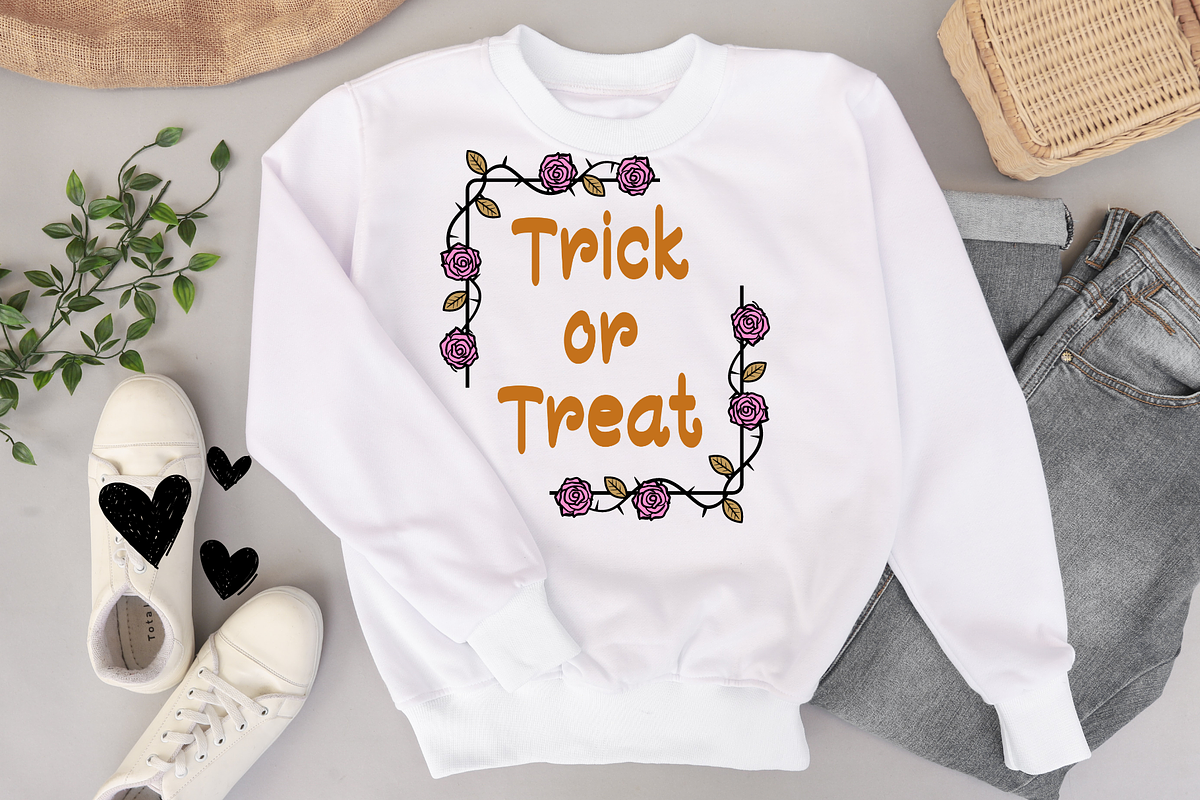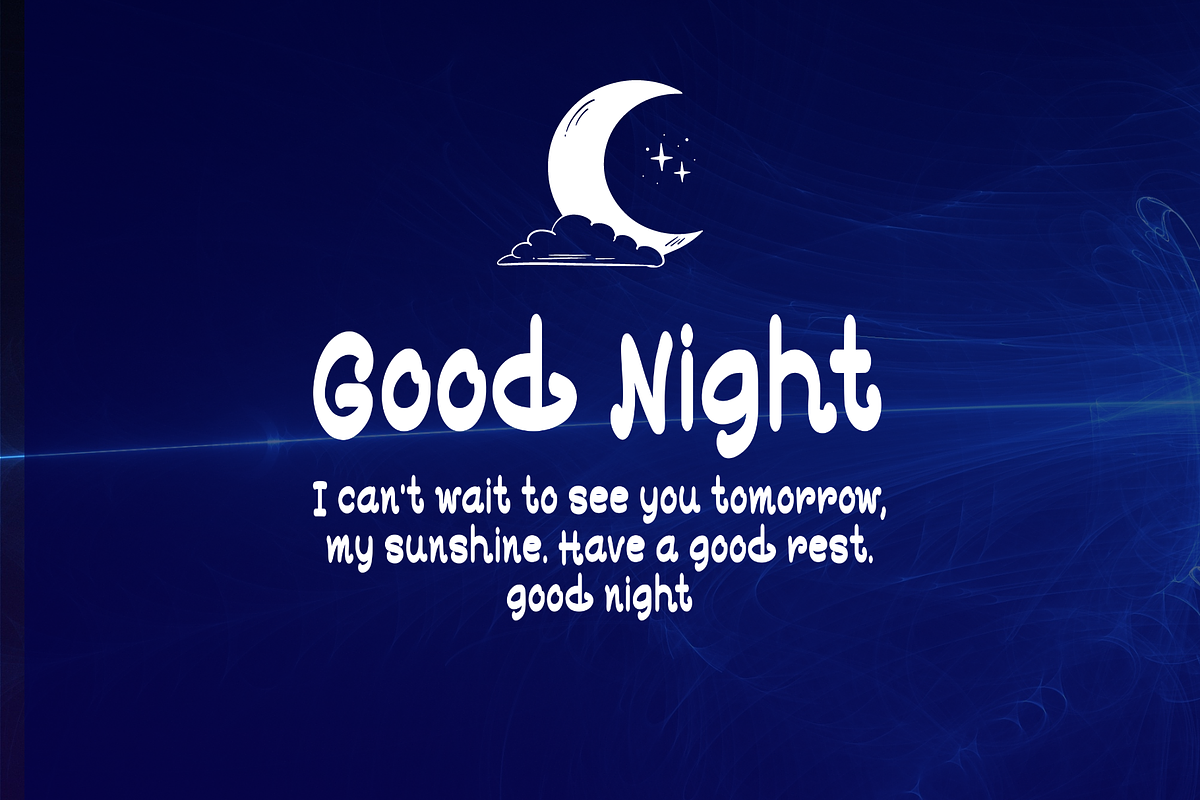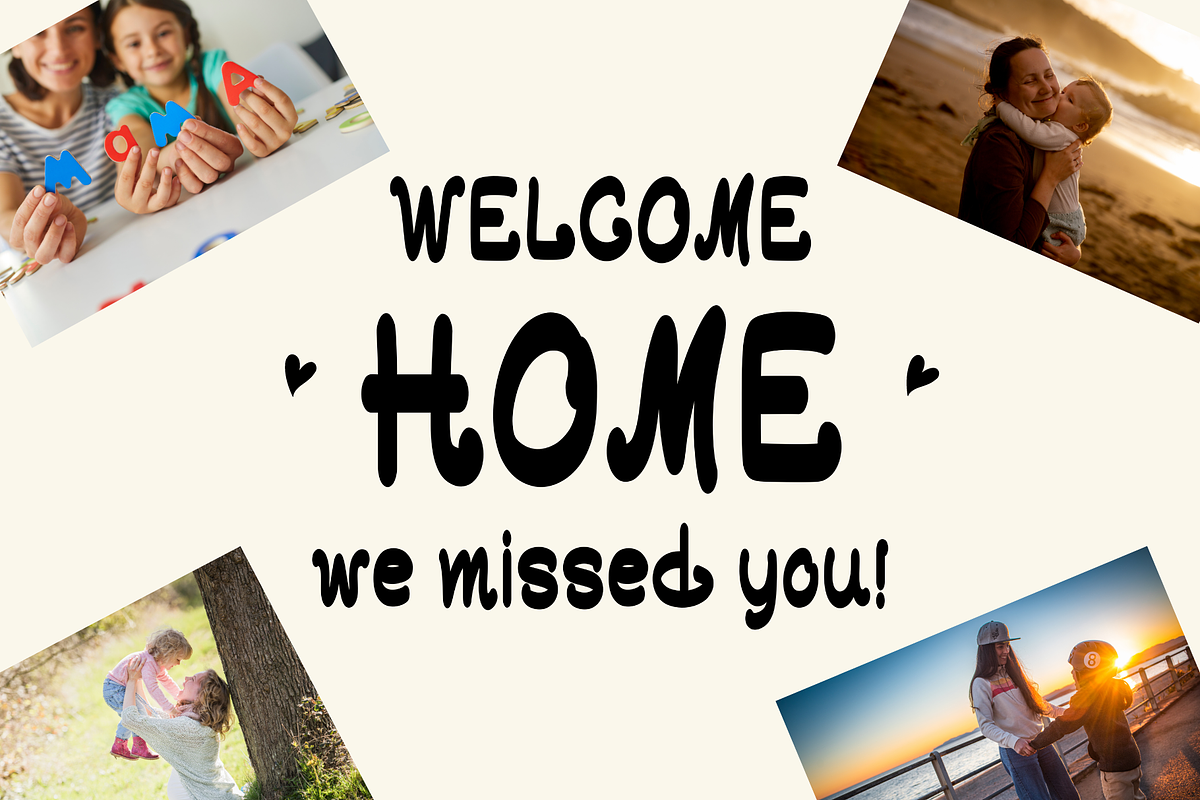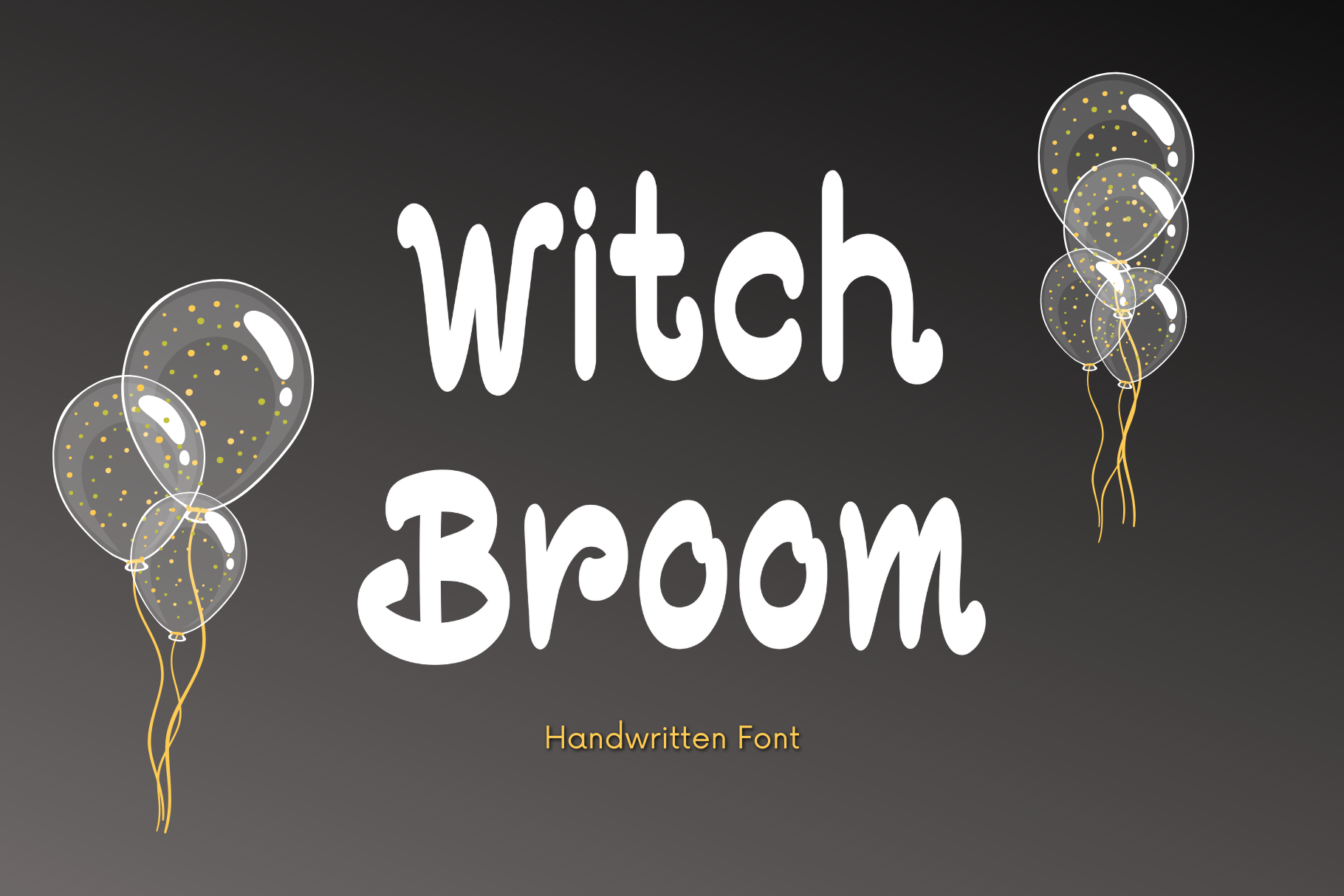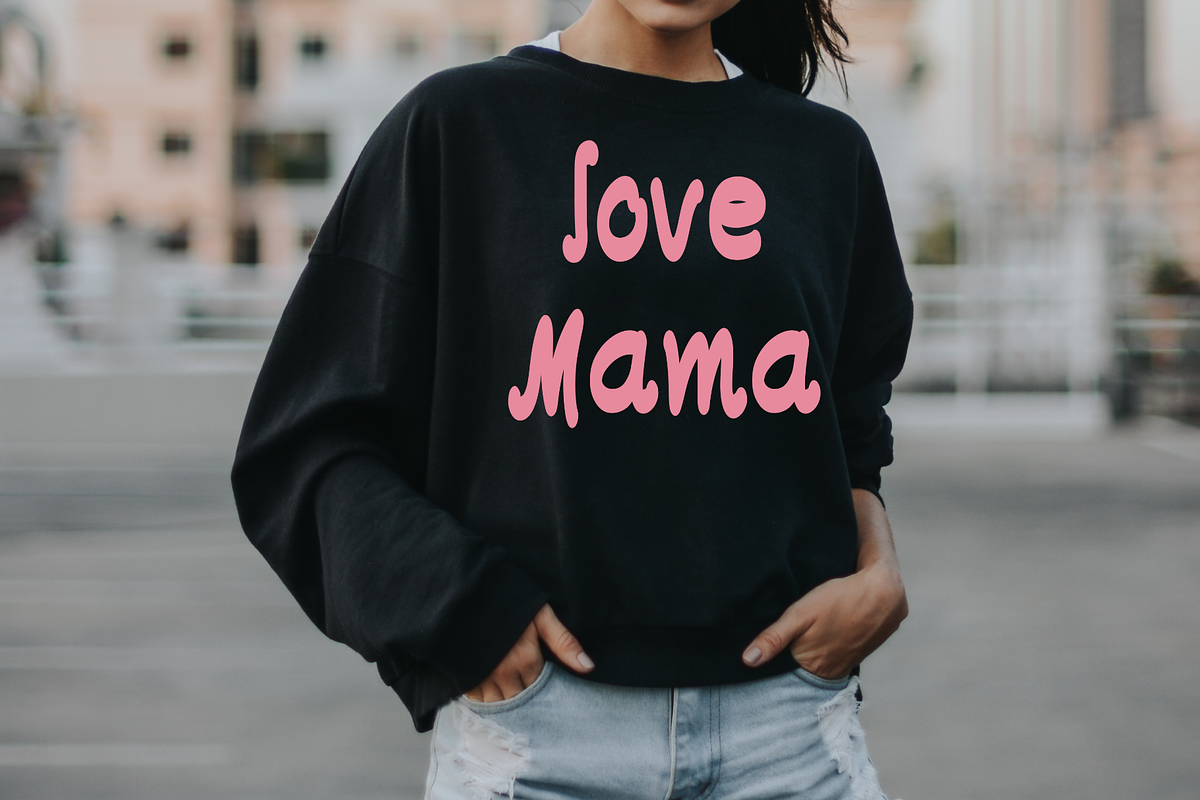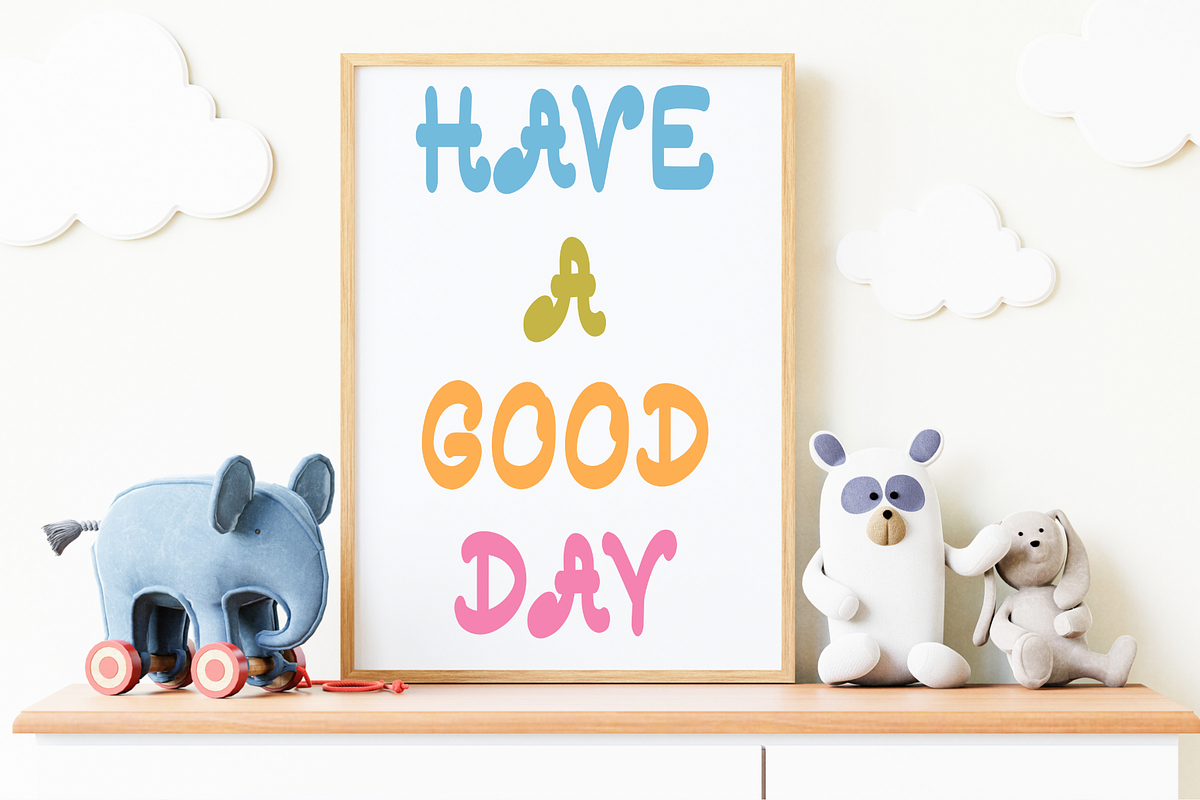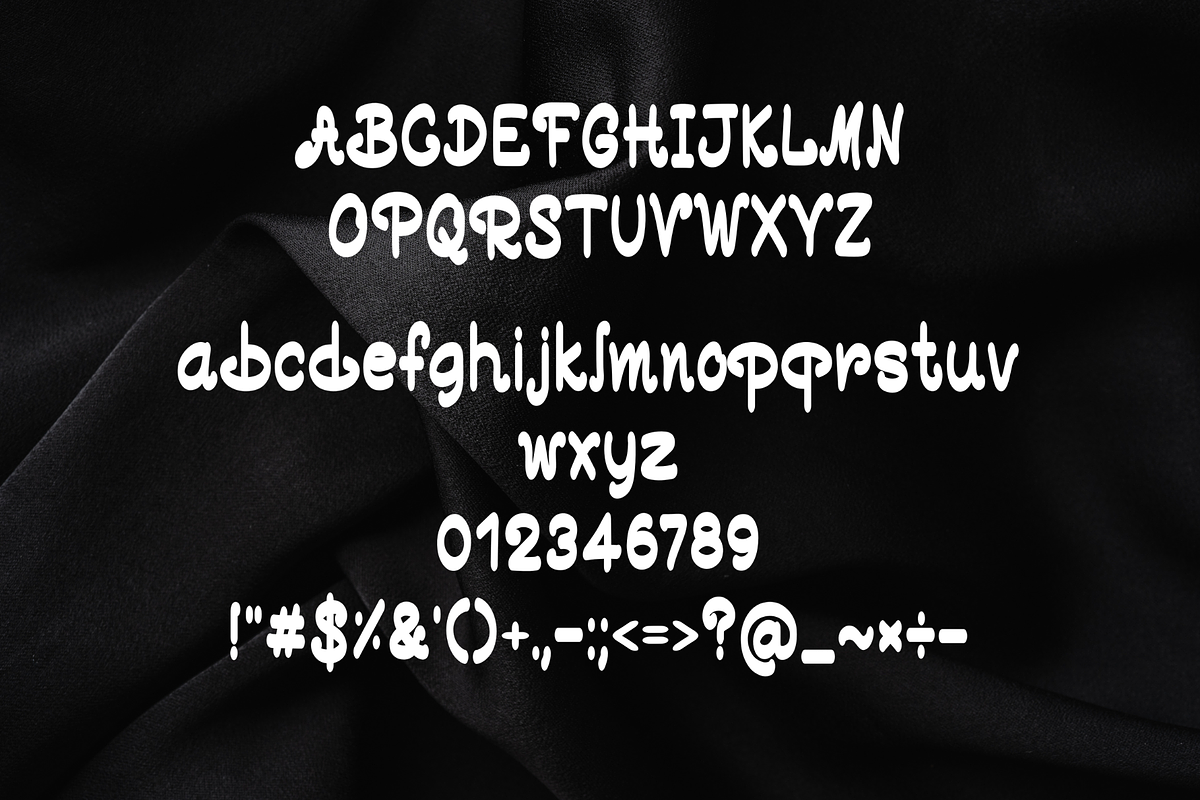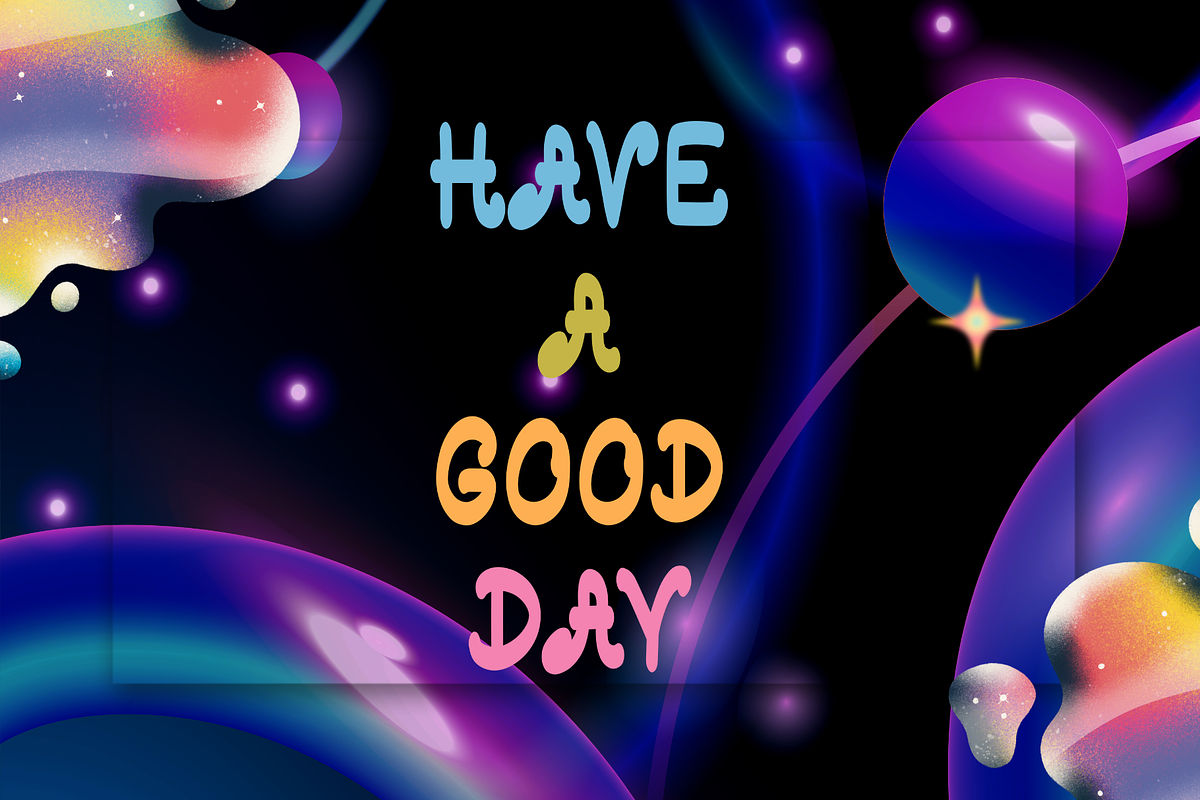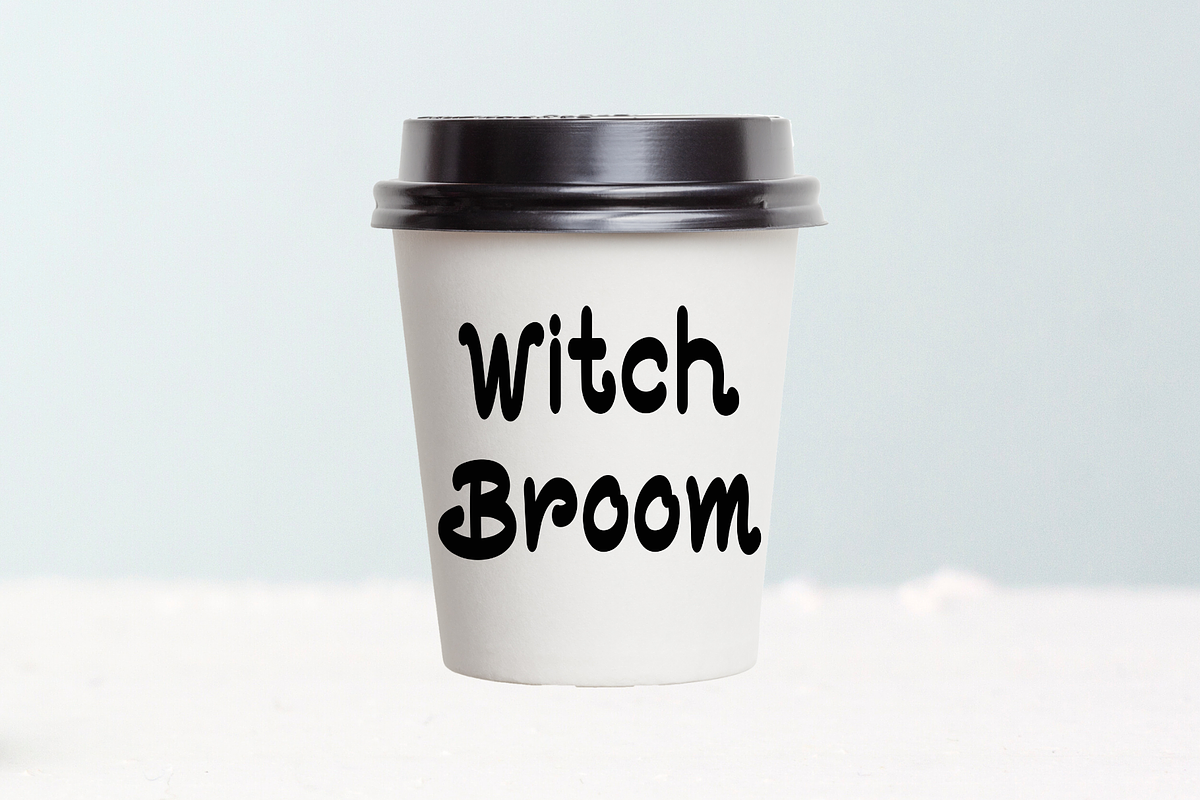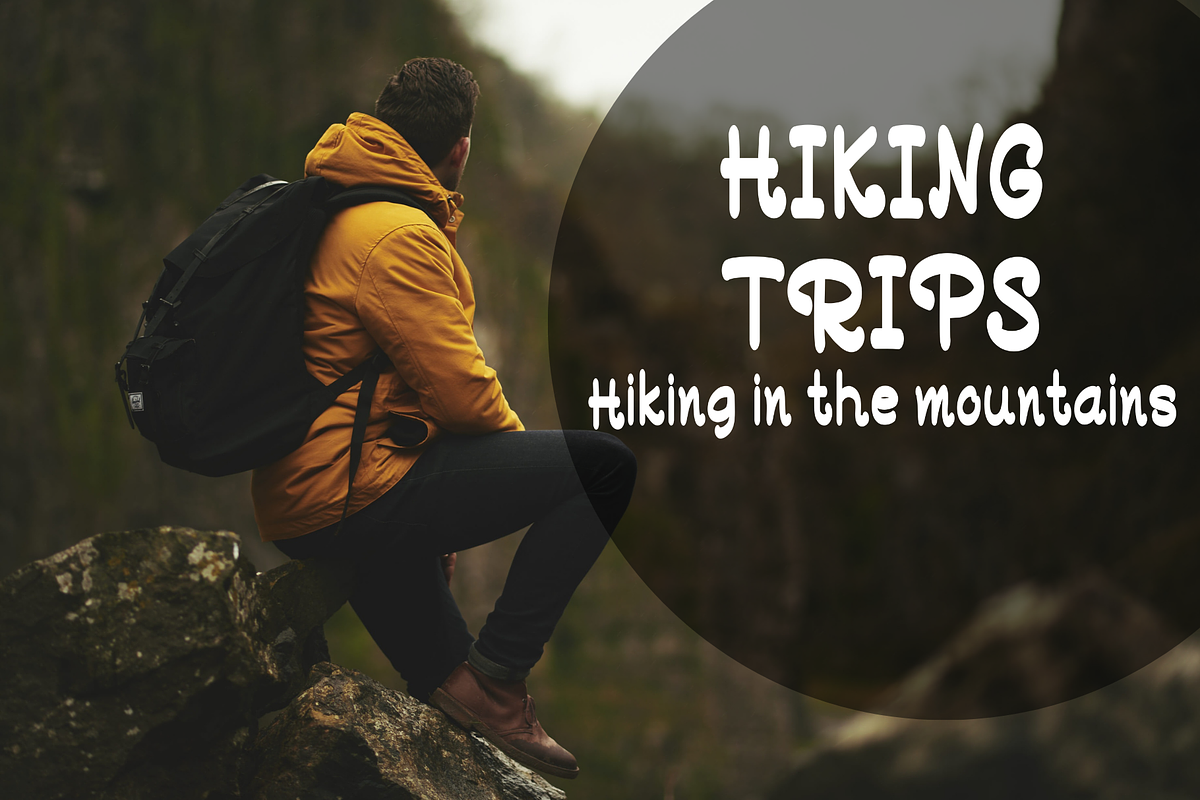
Witch Broom Font
Witch Broom is a beautiful and refined serif font. It has a classy, elegant, and modern look that can be used for logos, branding, invitations, stationery, wedding designs, social media posts, and much more!